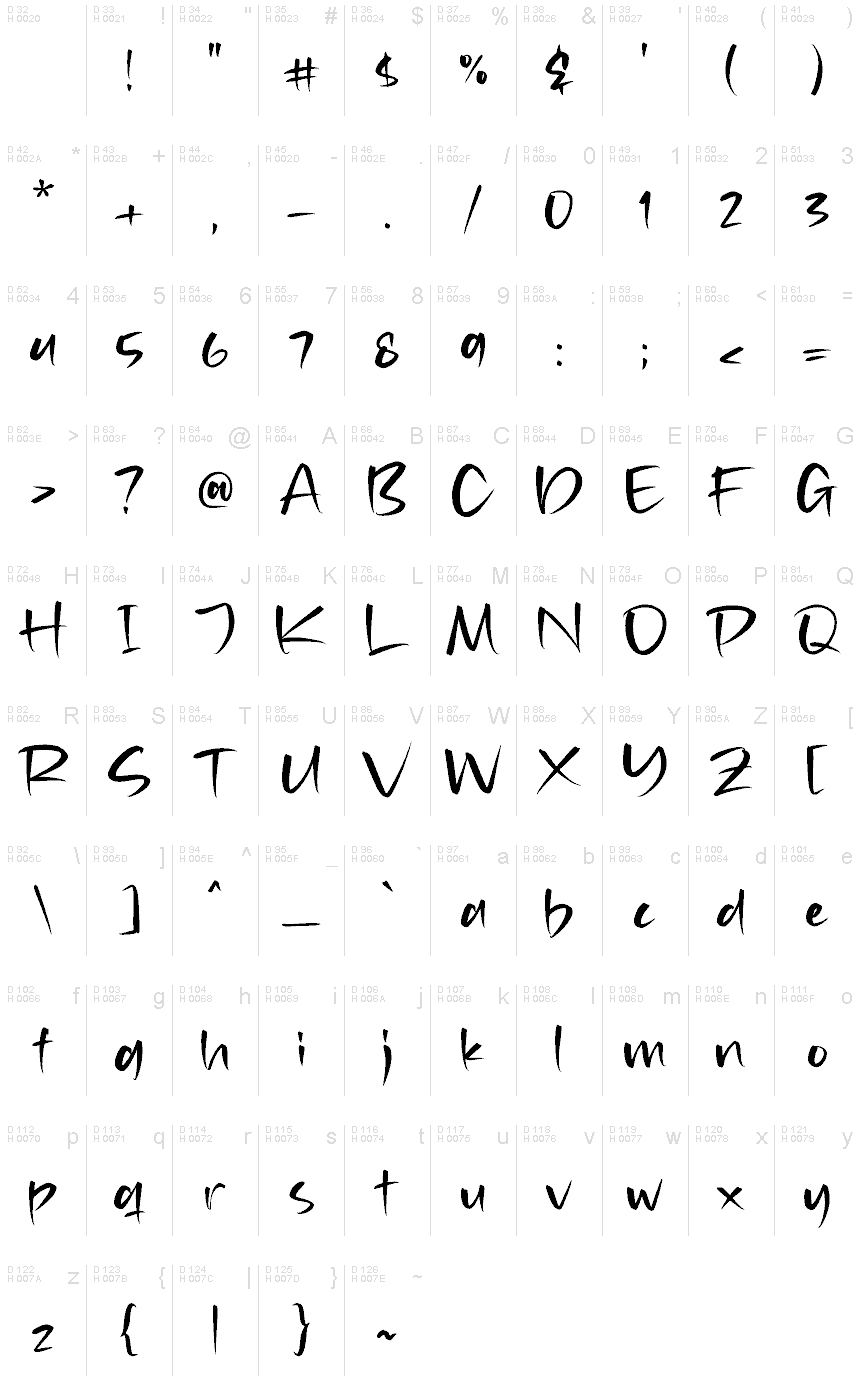
Dystopian Society
Dystopian Society font from Perspectype Studio - Letterena.com is a modern handwritten font that beautifully blends expressive and artistic qualities. With energetic strokes and a casual disposition, Dystopian Society fits exquisitely in contemporary applications of both branding and creative art projects.